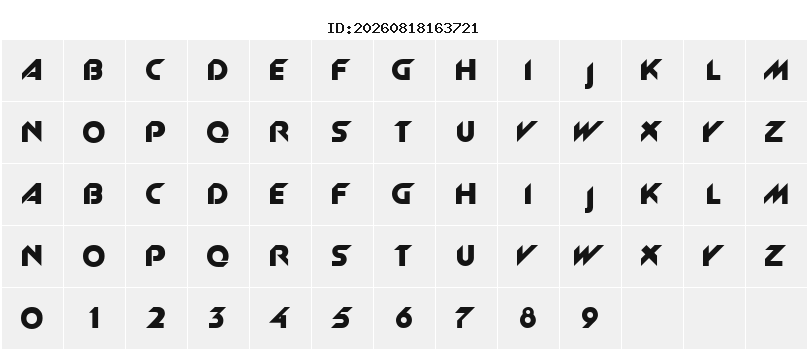
Slantwise Preview
• Font Name: Slantwise
• Full Font Name: Slantwise
About Slantwise.ttf
Slantwise.ttf is a modern, elegant sans-serif font designed for ultimate readability and visual harmony. Perfect for branding, headlines, web design, and print materials.